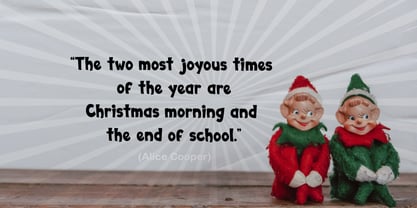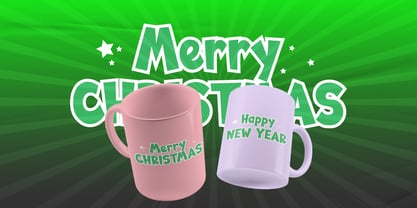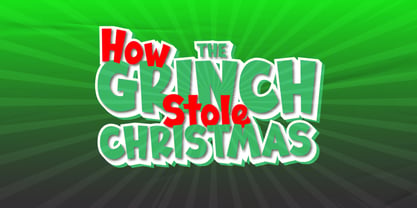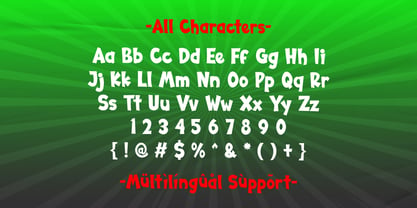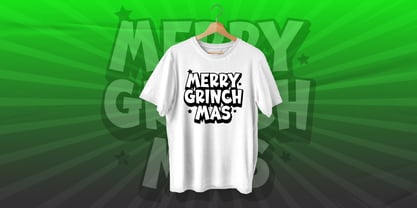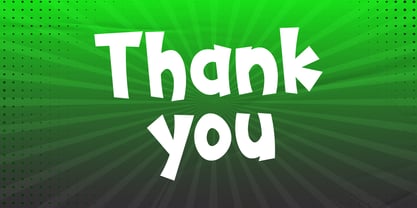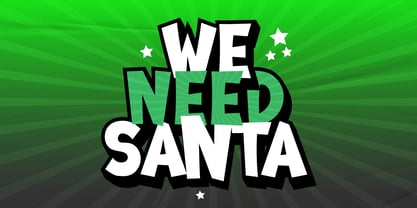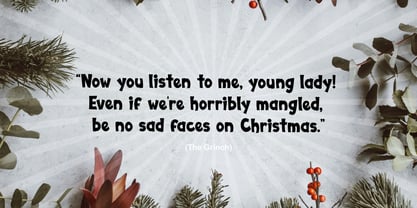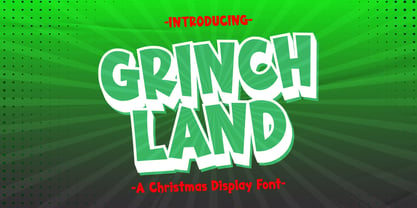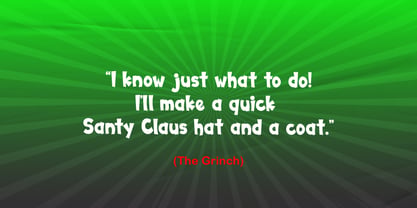
Grinch land
by Patlot Digital Studio
The Grinch land Font Family was designed by Gugun Gunawan and published by Patlot Digital Studio. Grinch land contains 1 styles. More about this family
The Grinch Land font is a Christmas-inspired font. This font embodies joy and authenticity and is the perfect choice for all your favorite projects. Add this font to your designs such as blog posts, logos, branding, advertisements, invitations, greeting cards, planners, photo albums, decorations, and more. See the results! Grinch Land exudes unfading charm in your designs. Incorporate this font into your artwork and watch it creatively transform the landscape. Marvel at the delightful possibilities Grinch Land brings to your creations!
Designers: Gugun Gunawan
Foundry: Patlot Digital Studio
Patlot Digital Studio was founded in 2022 and is managed by Gugun Gunawan. I love drawing letters. I want to continue developing my creativity and using my passion to provide greater benefits for myself and the design community. I founded Patlot Digital Studio to help designers choose their projects. I create handwritten fonts, script fonts, and display fonts. Now I pursue my new passion full-time from my home studio.